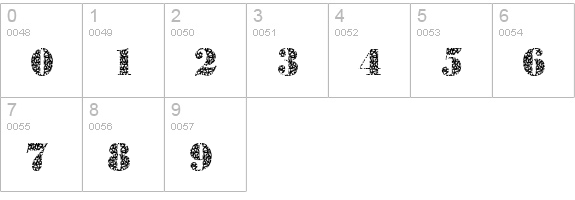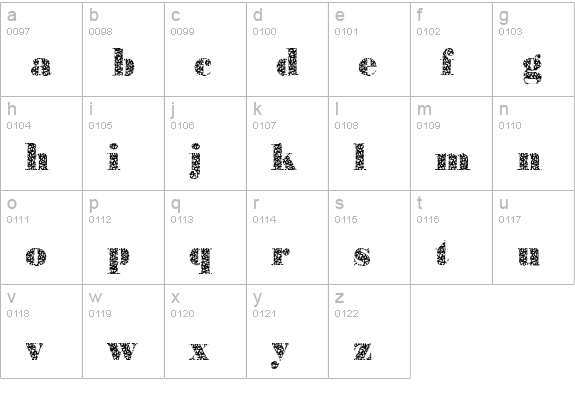
BodoniTriangles-Regular Font Details
BodoniTriangles-Regular is the standard, neutral variant in the BodoniTriangles typeface family \xE2\x80\x94 well suited to general body text, paragraphs, and standard typographic work.
BodoniTriangles-Regular is a modern and stylish font that combines classic elegance with a contemporary twist. Its sharp triangular serifs give it a unique and eye-catching look, making it perfect for designs that require a touch of sophistication. This font is versatile and can be used for various projects such as logos, branding, posters, and more. The best part is that BodoniTriangles-Regular is completely free to download at FontsMarket.com. Whether you're a designer looking to add a fresh font to your collection or just someone who appreciates great typography, this font is a must-have. Don't miss out on the opportunity to elevate your designs with this stunning typeface. Download BodoniTriangles-Regular today and let your creativity soar!